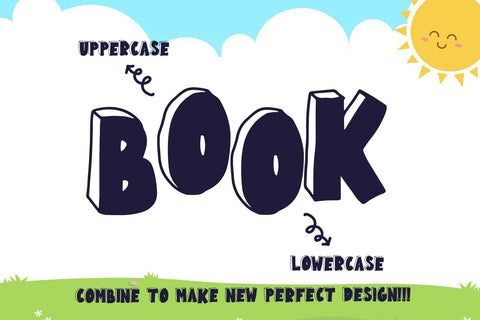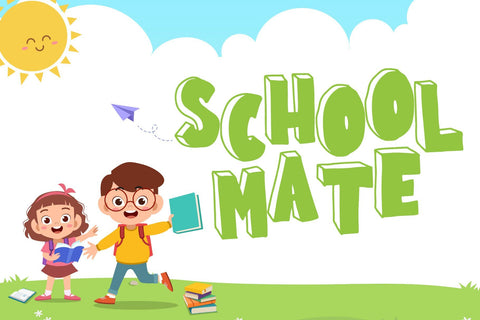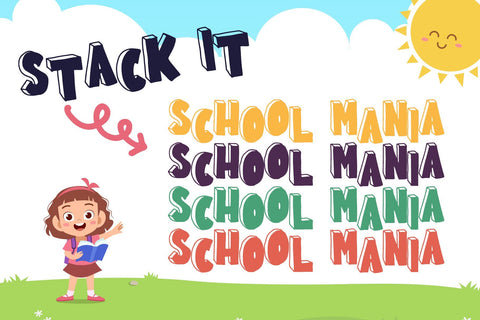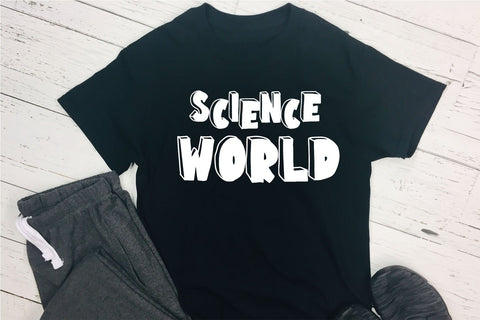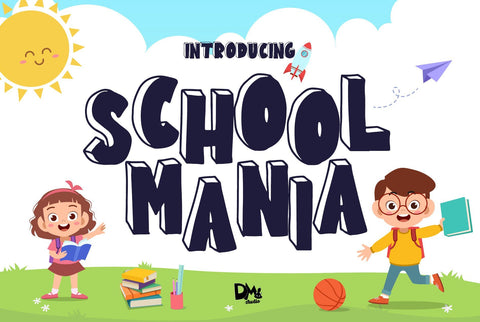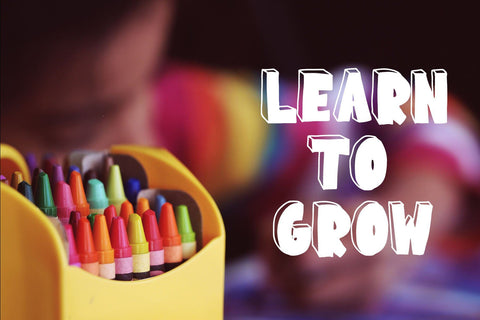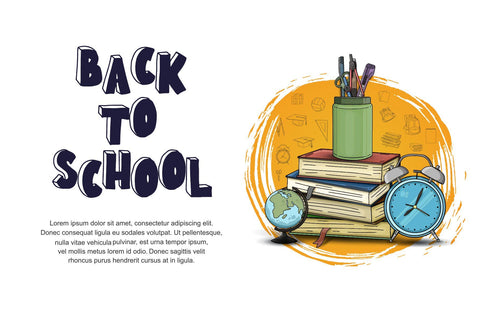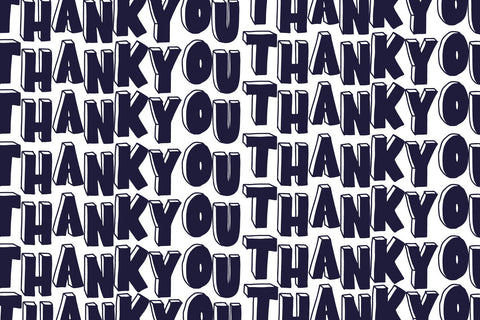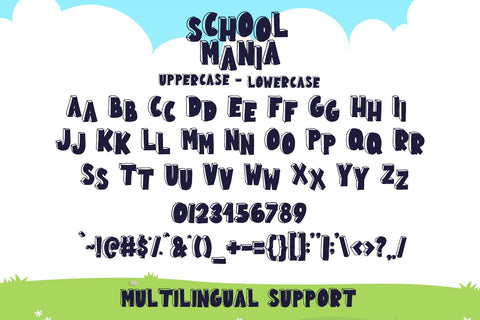
School Mania - Block Crafty Font
Introducing, School Mania Display Font
Play with School Mania font! It's a whimsical handwritten font, inspired by childhood drawing at school ! Combine the Uppercase and lowercase to have a zigzag style, or stack it to make your design more catchy!
- Uppercase ( higher letter position )
- Lowercase ( lower letter position )
- Numbers
- Symbols